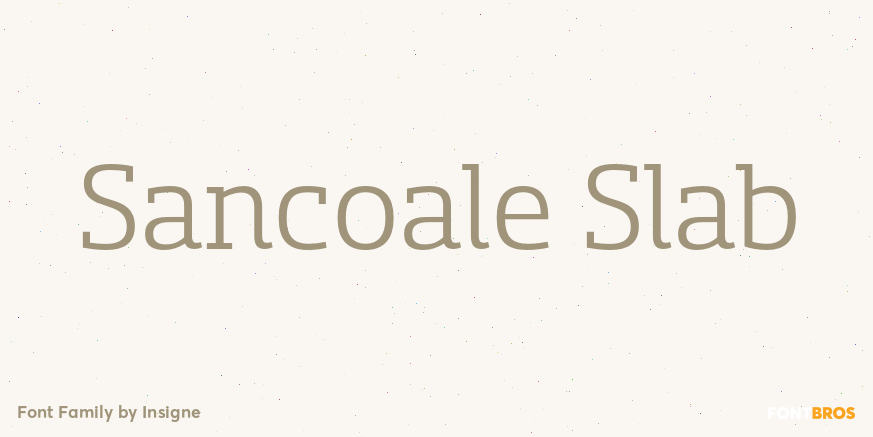
About Sancoale Slab
The contemporary feel of the Sancoale superfamily takes a bolder turn with this futuristic slab. Built from Sancoale\’s successfully simple geometry, Slab\’s serif elements and tall x-height give the face an energetic, yet clean figure that easily complements…